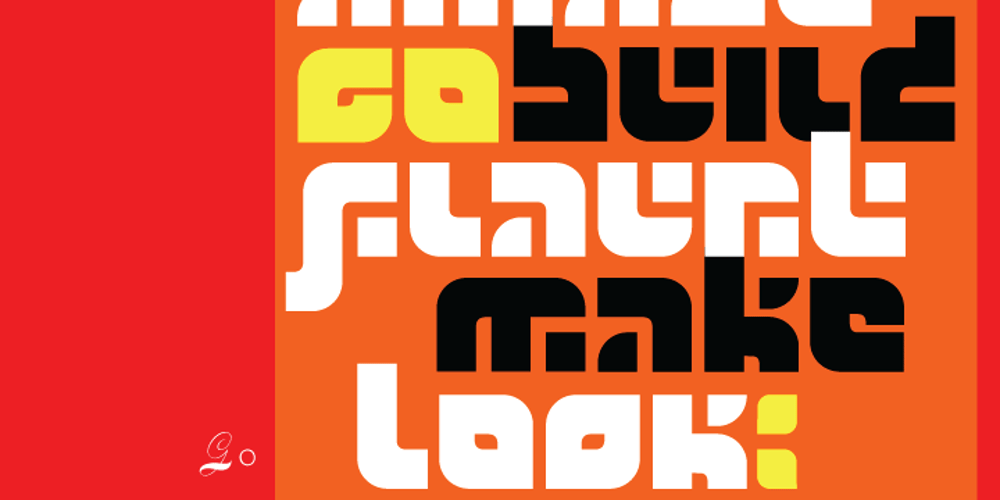
Go font
Go Font Family was designed by Patrick Griffin and published by Canada Type. Go contains 1 styles and family package options. Five years into the 21st century and the promise of nanotechnology, high-end popular culture design seems to thrive on combining opposites and drawing a fine line between traditionally contradictory ideas. This is seen in modern society’s usual cultural frontrunners – like consumer electronics, fashion items, music packaging and publications, where it is evident that traditionally complex marketing statements of fashionability and lifestyle are attempted with simple minimalism. But at the typographic end of this realm, the creative majority still uses old faces that help the modern statement only in passing. Some of the more adventurous creative professionals actively seek new elements to emphasize contemporary impact in their modern design. To those adventurous types (pun intended), Canada Type presents this new face called Go. It is very much a child of the new millennium, inspired by the unmistakable minimalist style of modern 21st century corporate logos, recent design shifts in electronic music and club-marketing collateral, and disc jockeys who have enthusiasm, energy, precision and total control of each and every vibration traveling from mixer to speakers. Go is an original modern techno-lounge face that offers the eyes pleasing collages of friendly minimal forms that give the words an impression of simplicity and depth at once. This is a font that prides itself on its precise grouping of elements and just enough original creativity in combining those elements. The precision builds the sharp edge sought for modern statements, while the creativity keeps the message rejuvenated, clear and interesting. Go’s character set consists of a versatile and unexpected, yet mild mix of the uppercase and lowercase forms, with multiple variations on the majority of the letters. The e being a vertical mirror of G is only the first of the pleasant surprises. More than 30 alternates are inside the font. All the accented characters in Go have been meticulously (perhaps obsessively) drawn to be unusual for logos and short statements. Take a look at the character map and be ready for a space-age surprise. To borrow a Star Trek cliché, this font can Go where no font has gone before.